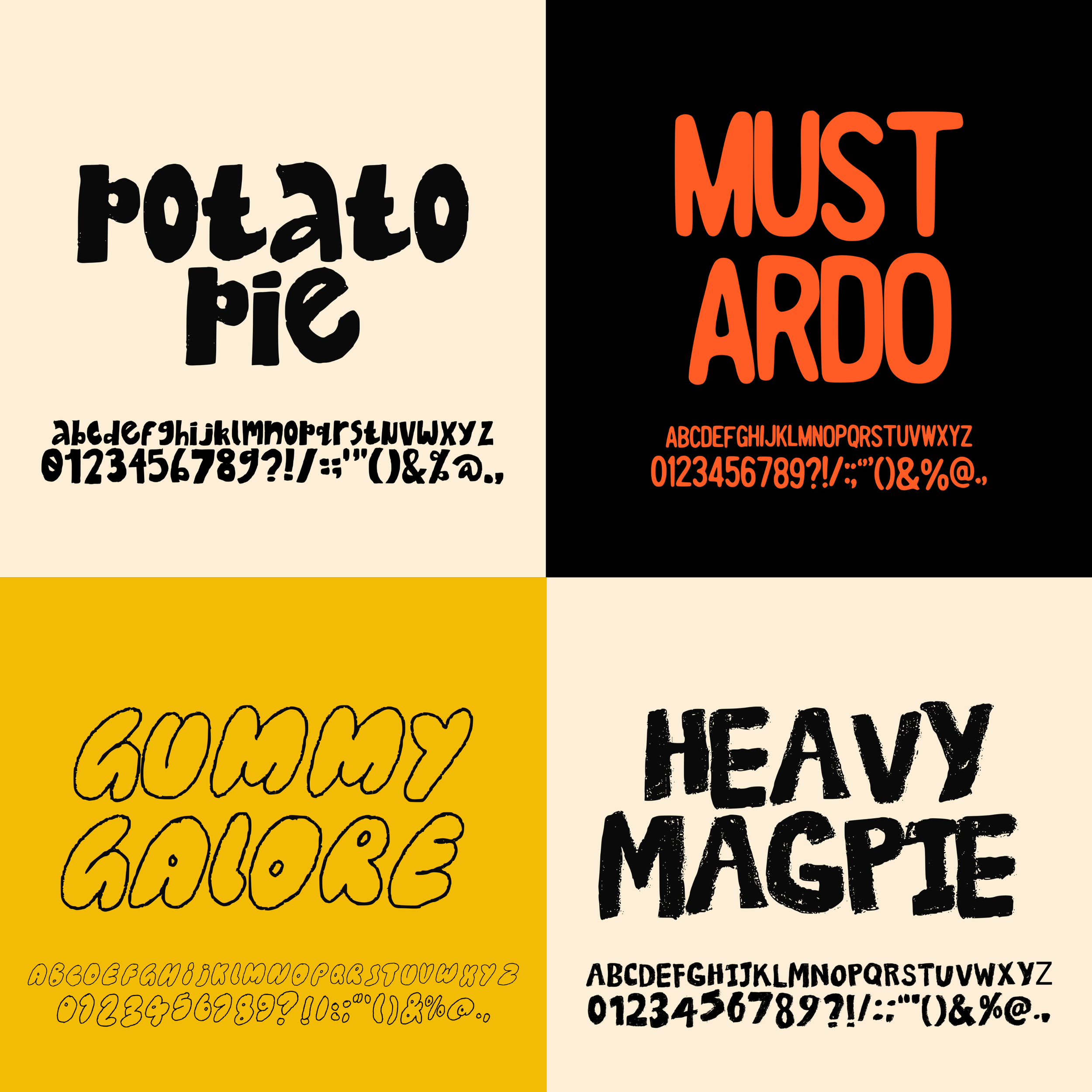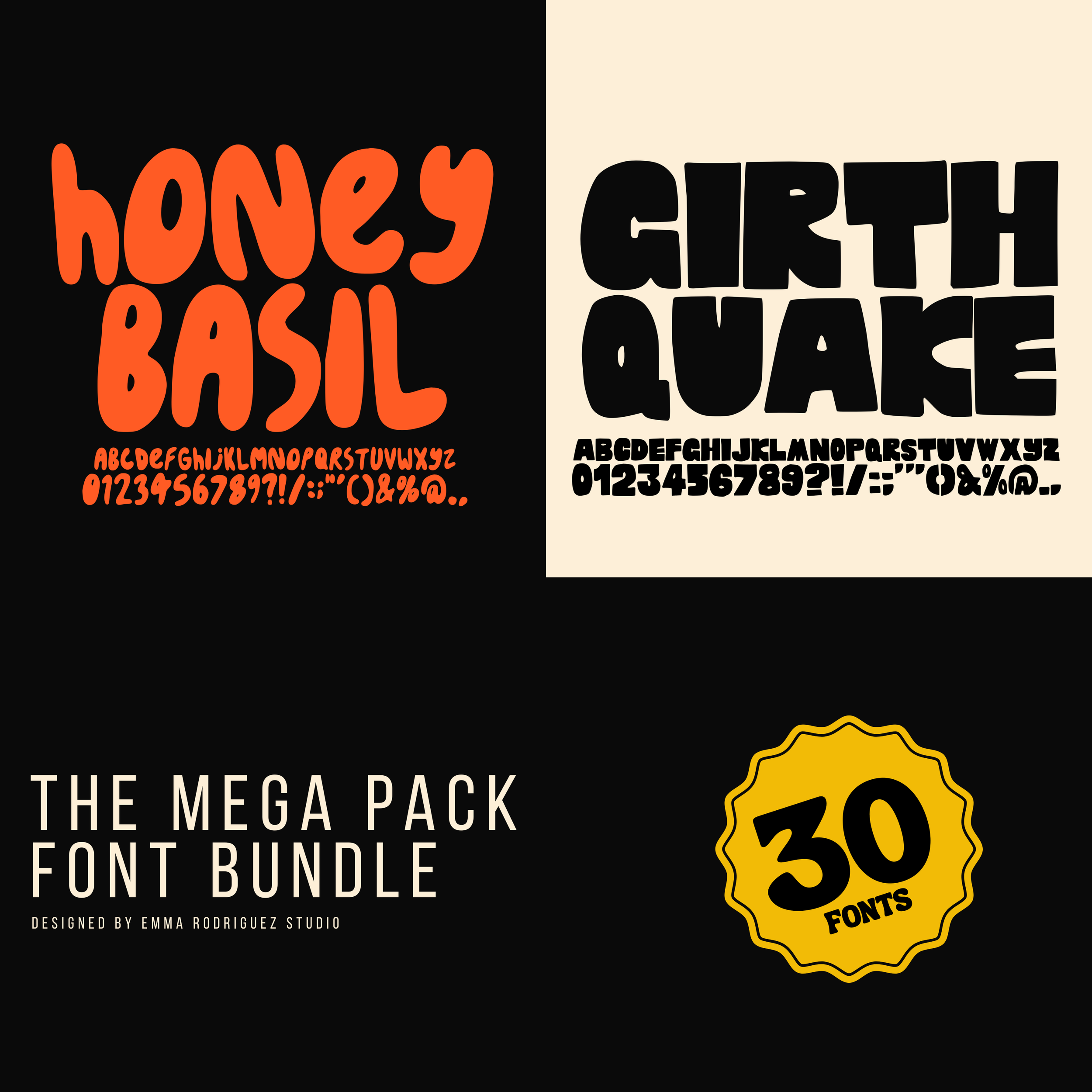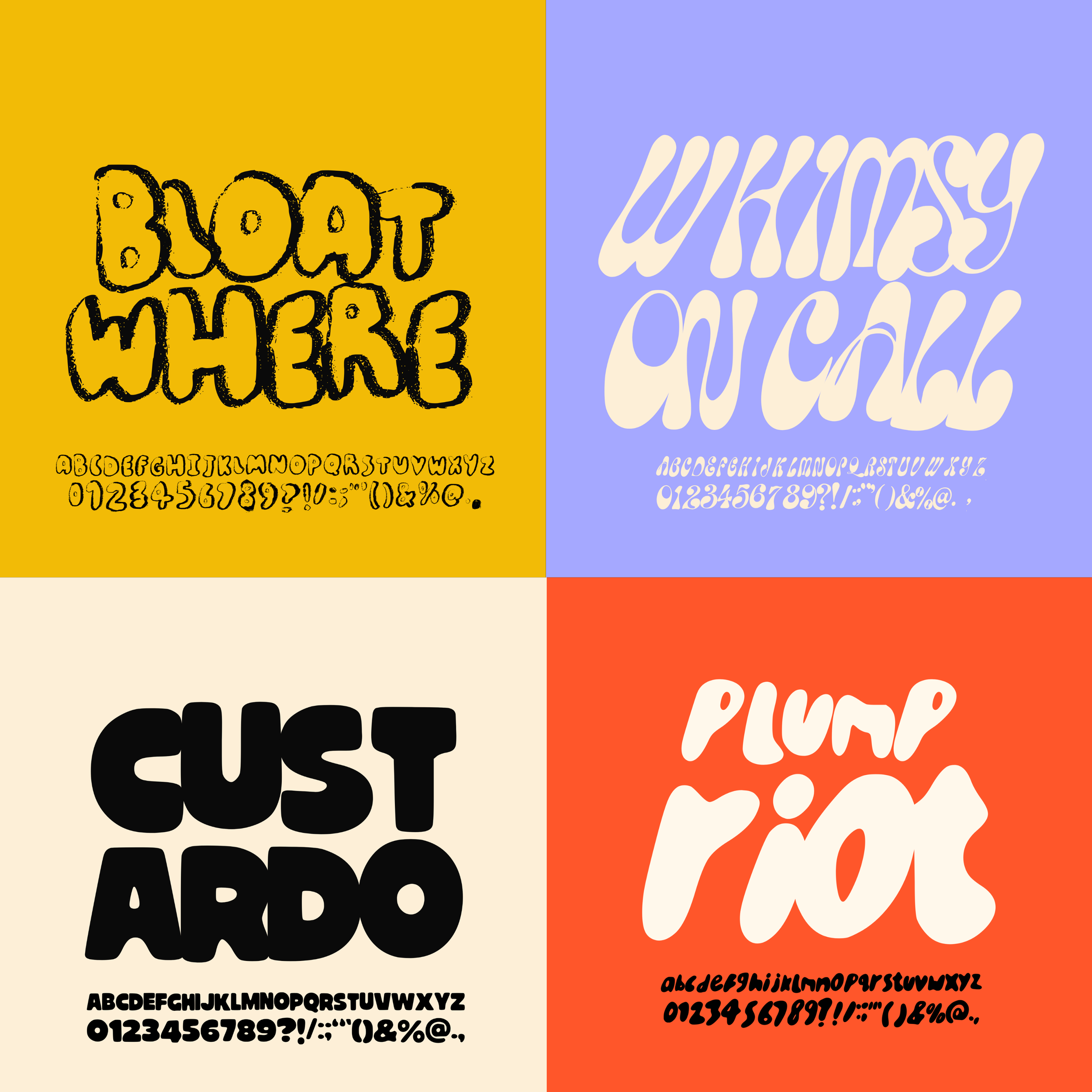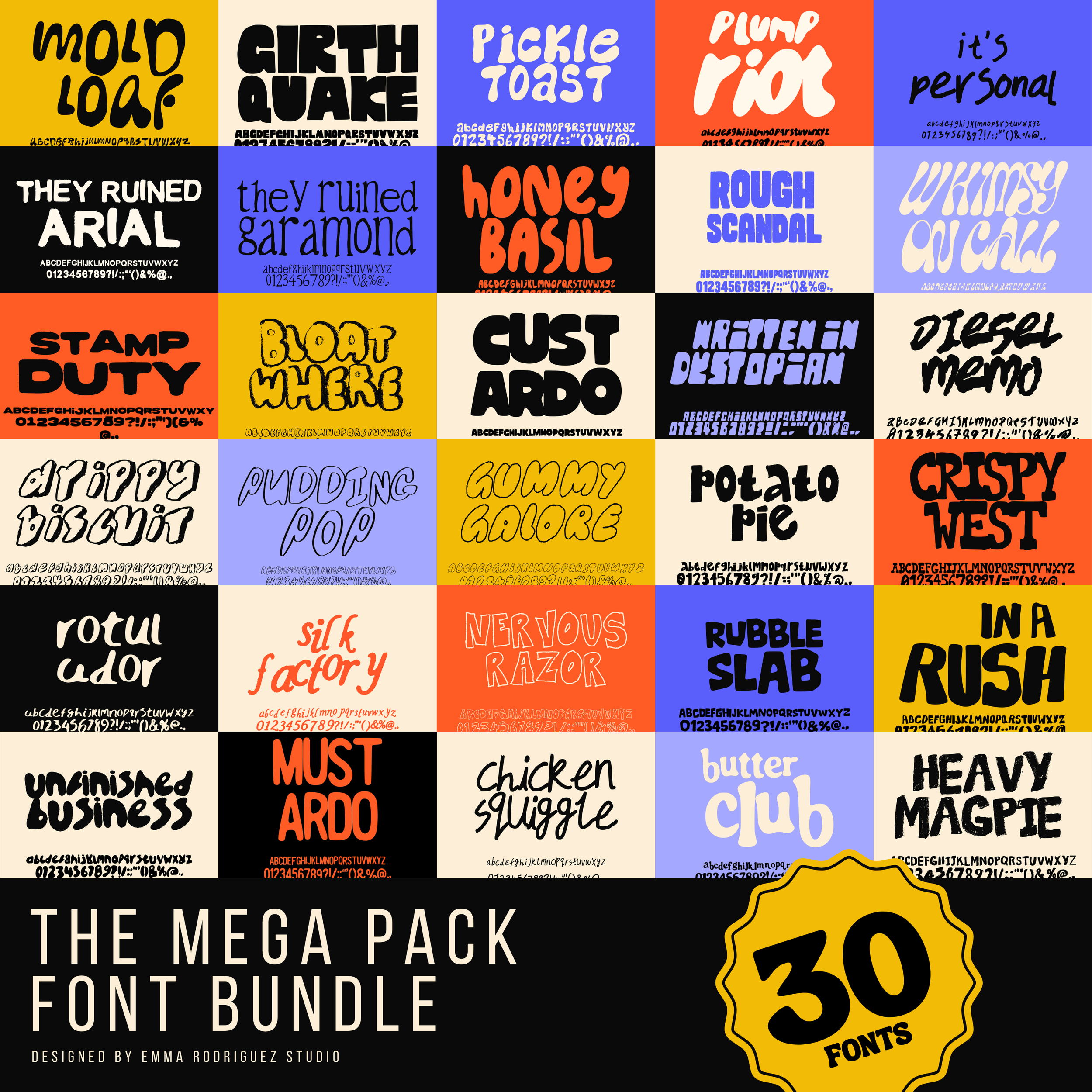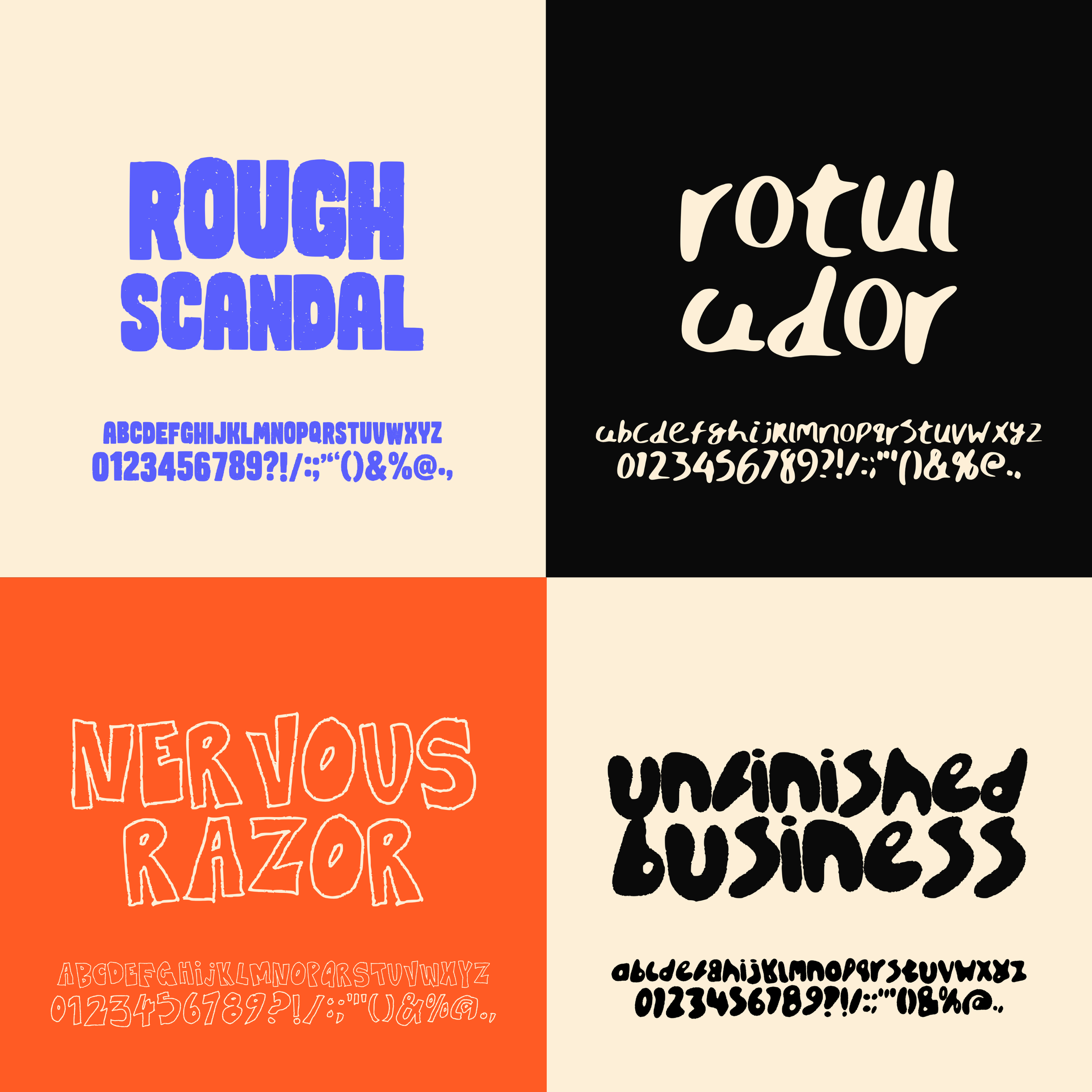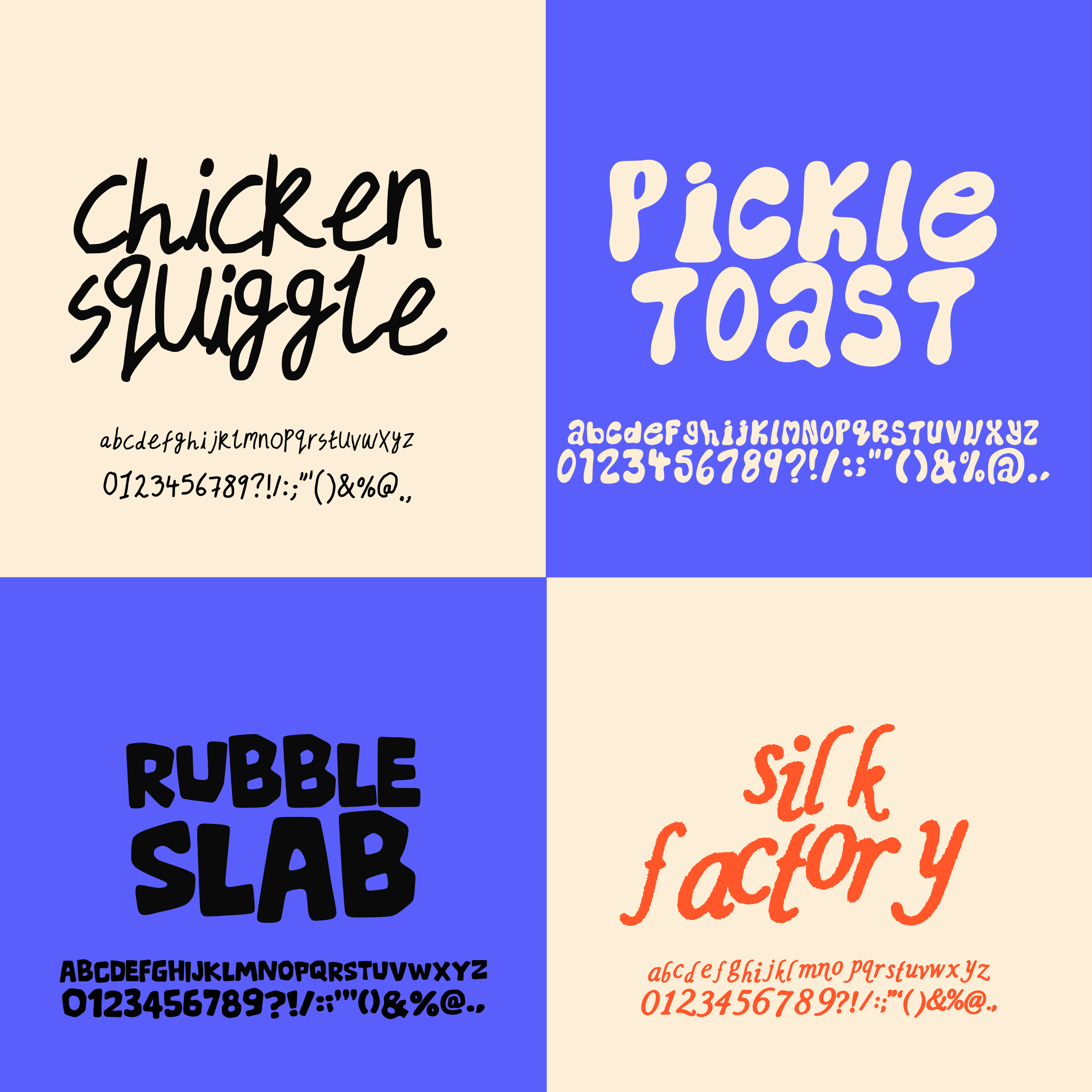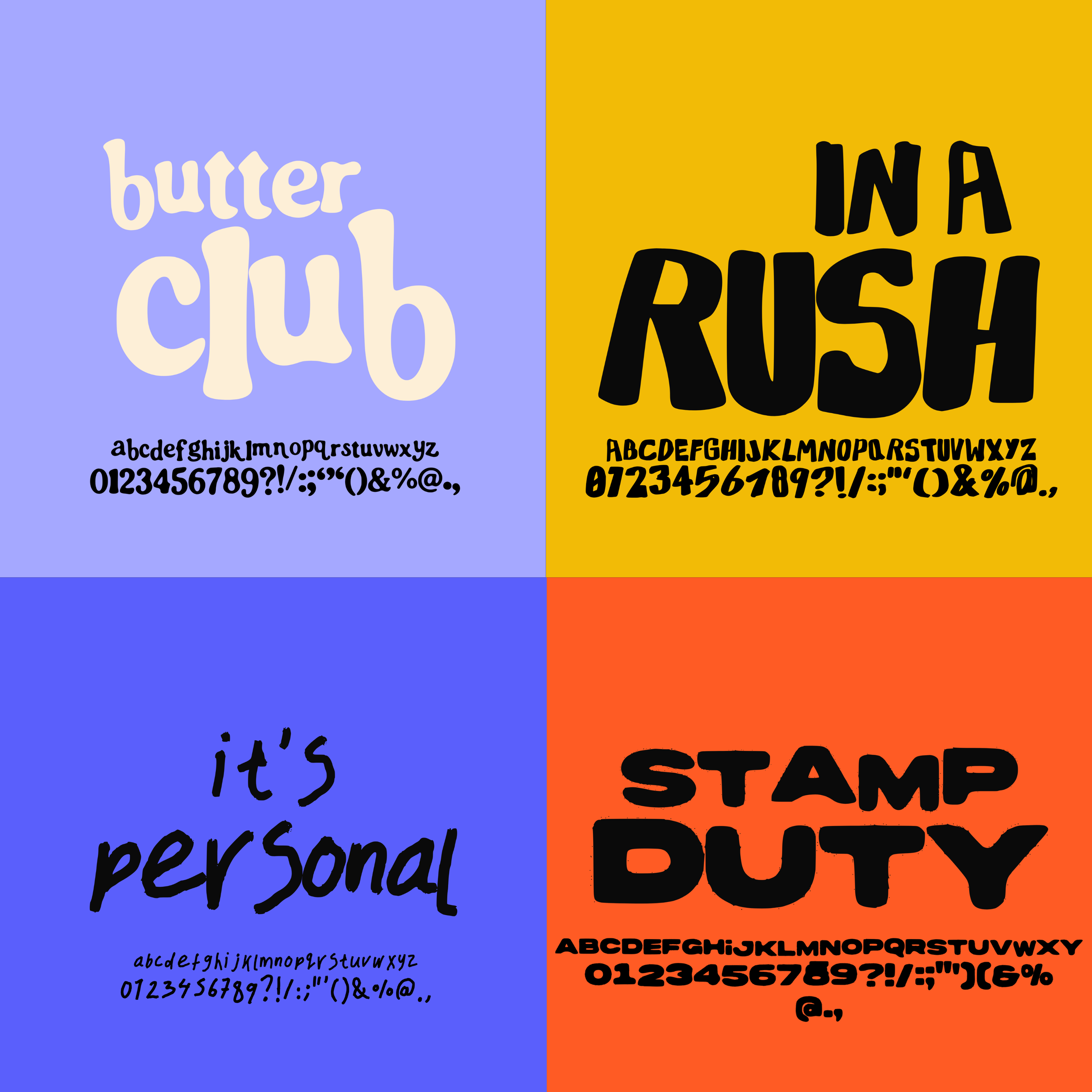
The Mega Pack Font Bundle, 30 Fonts
The 30 Font Mega Pack is a huge creative font bundle packed with bold, expressive, personality driven fonts made for modern designers, artists, illustrators, Etsy sellers and small businesses who want typography that actually has some character.
This collection brings together retro display fonts, chunky lettering, quirky editorial styles, playful sans serifs, hand drawn imperfections, statement typography, bold branding fonts and modern creative typefaces designed for both digital and print design.
This mega pack is ideal for graphic designers, illustrators, artists, branding studios, poster makers, clothing brands, Etsy sellers and creative businesses looking for fonts that feel contemporary, expressive and visually distinctive.
Fonts by Emma Rodriguez Studio are made to have personality. Expect naive shapes, wonky details, playful imperfections and type that doesn’t take itself too seriously. They’re not designed for clean, minimal branding. They’re for bold, quirky, maximalist projects that need something a little stranger, sillier and more expressive.